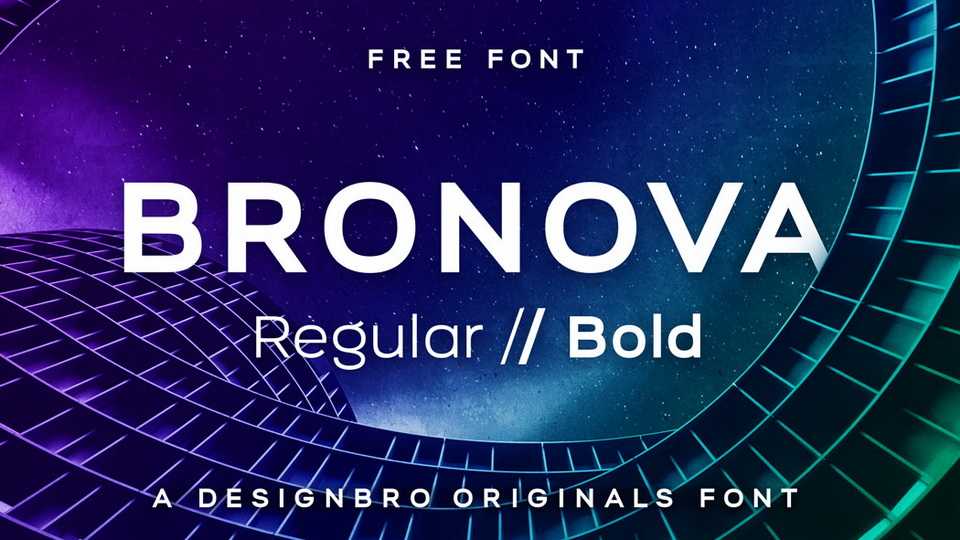
Download Bronova typeface, a sans serif font family in two weights inspired by the original ‘hand drawn curves’. Bronova fonts perfectly work both for text and headlines.
Designer: DesignBro